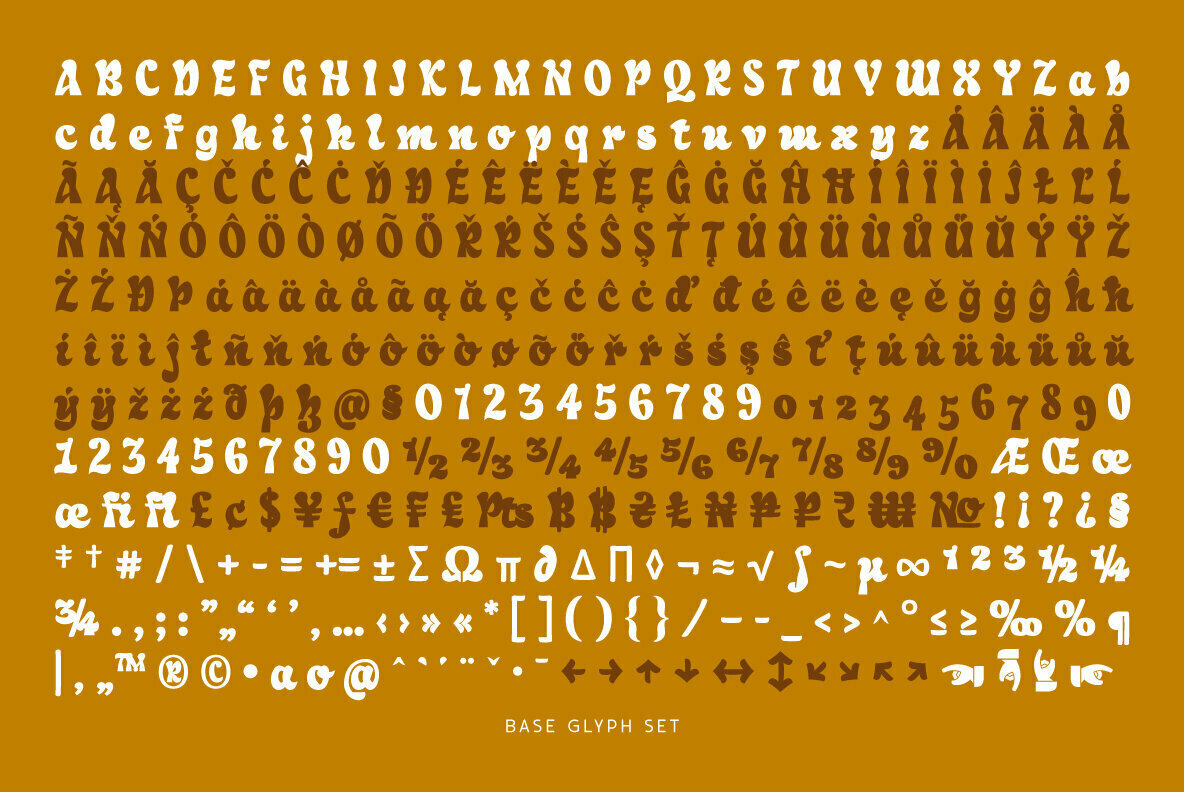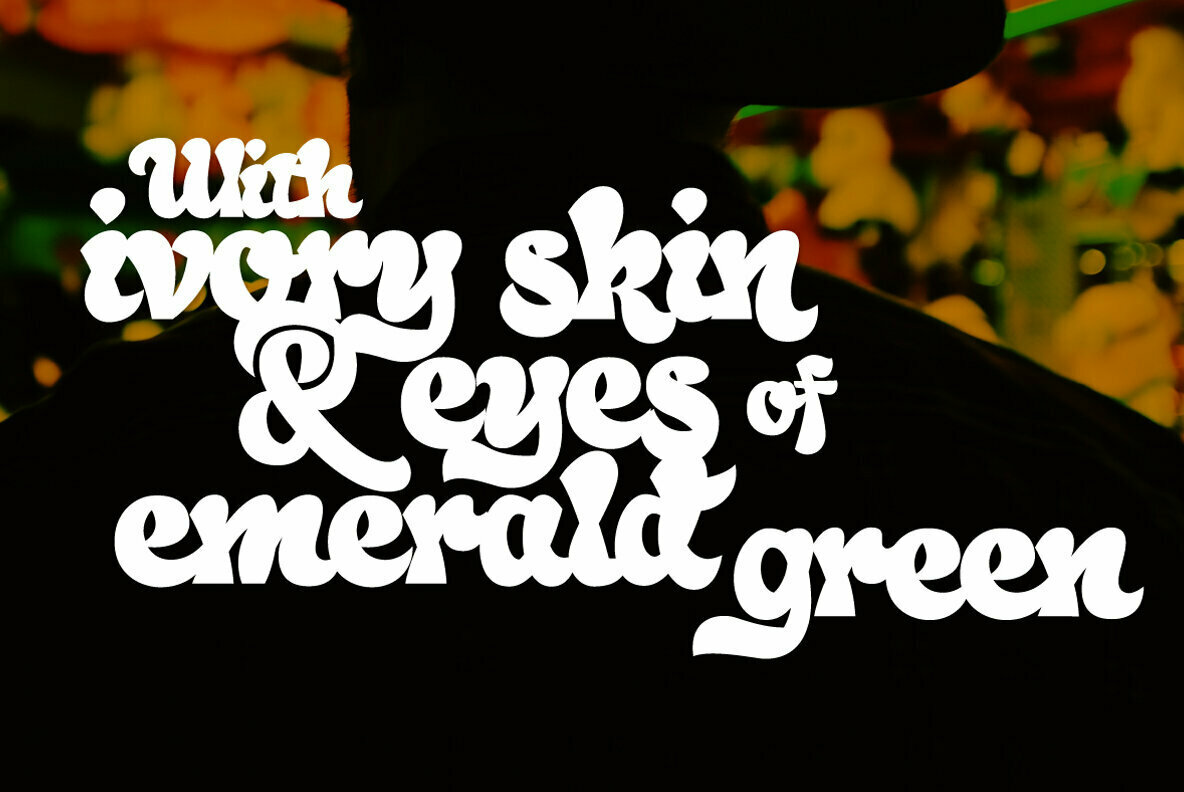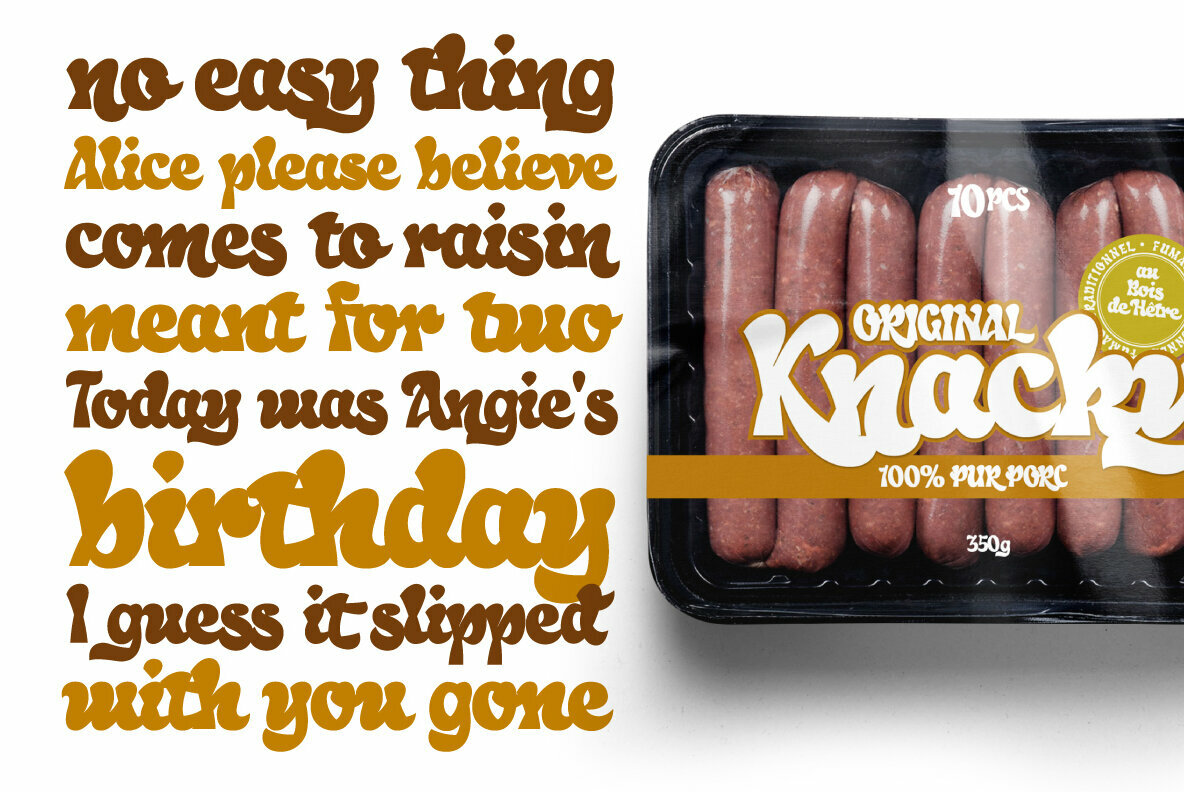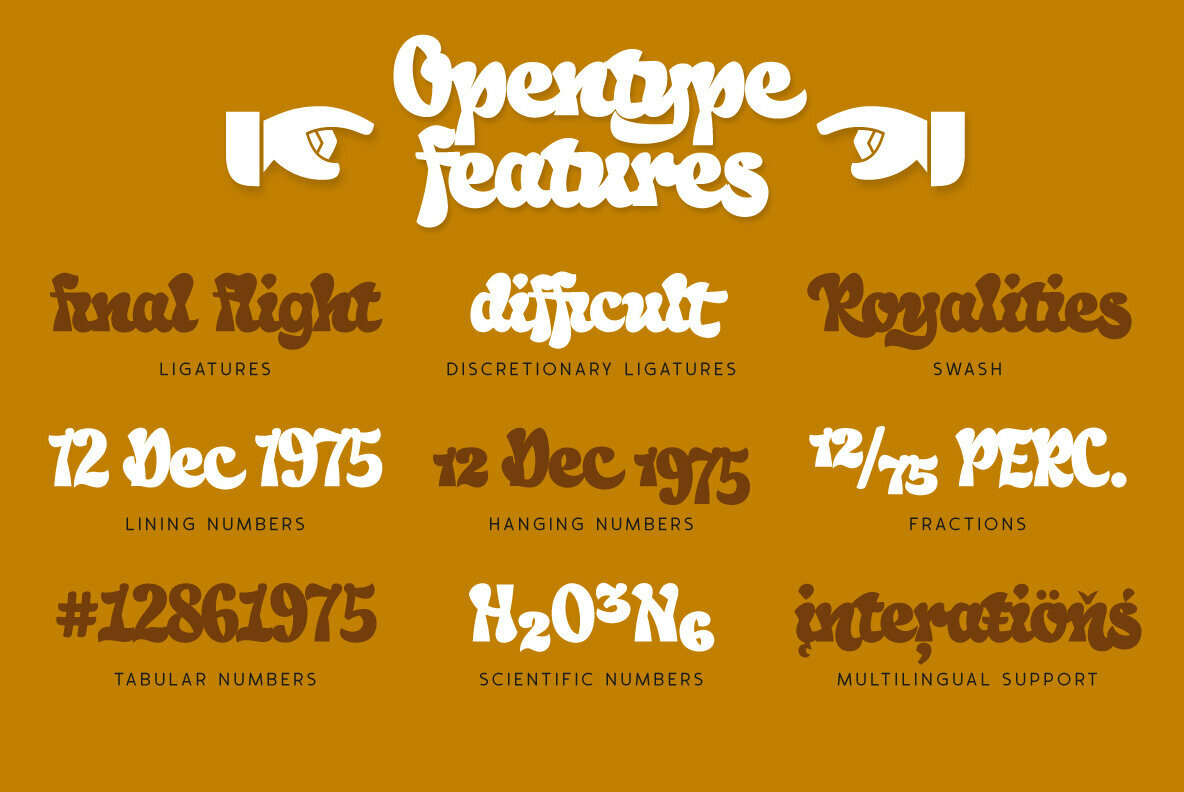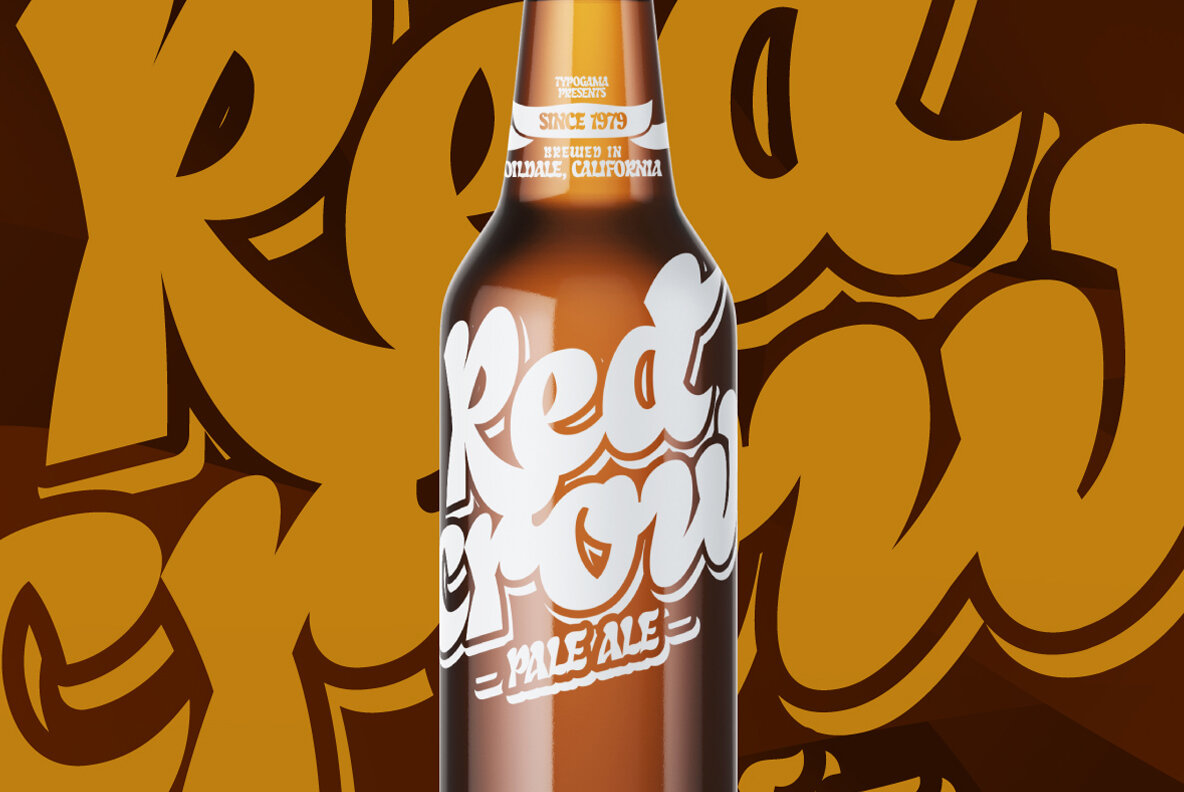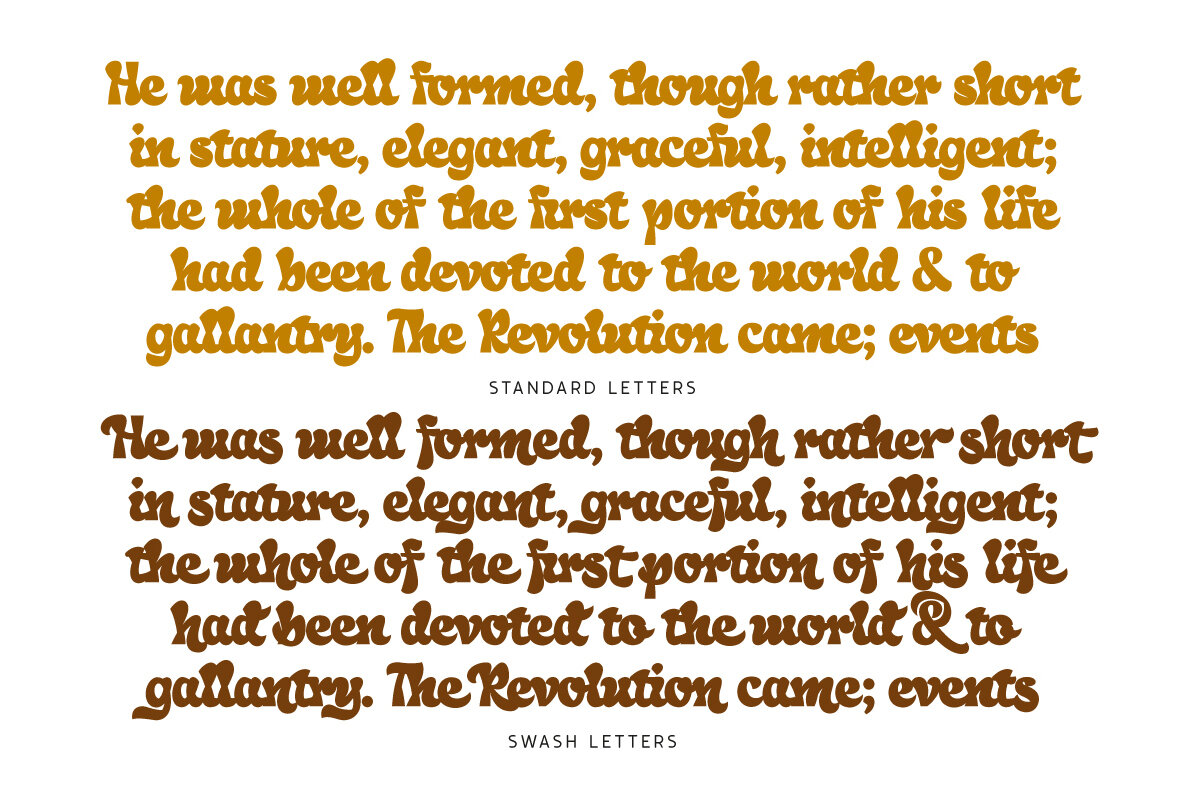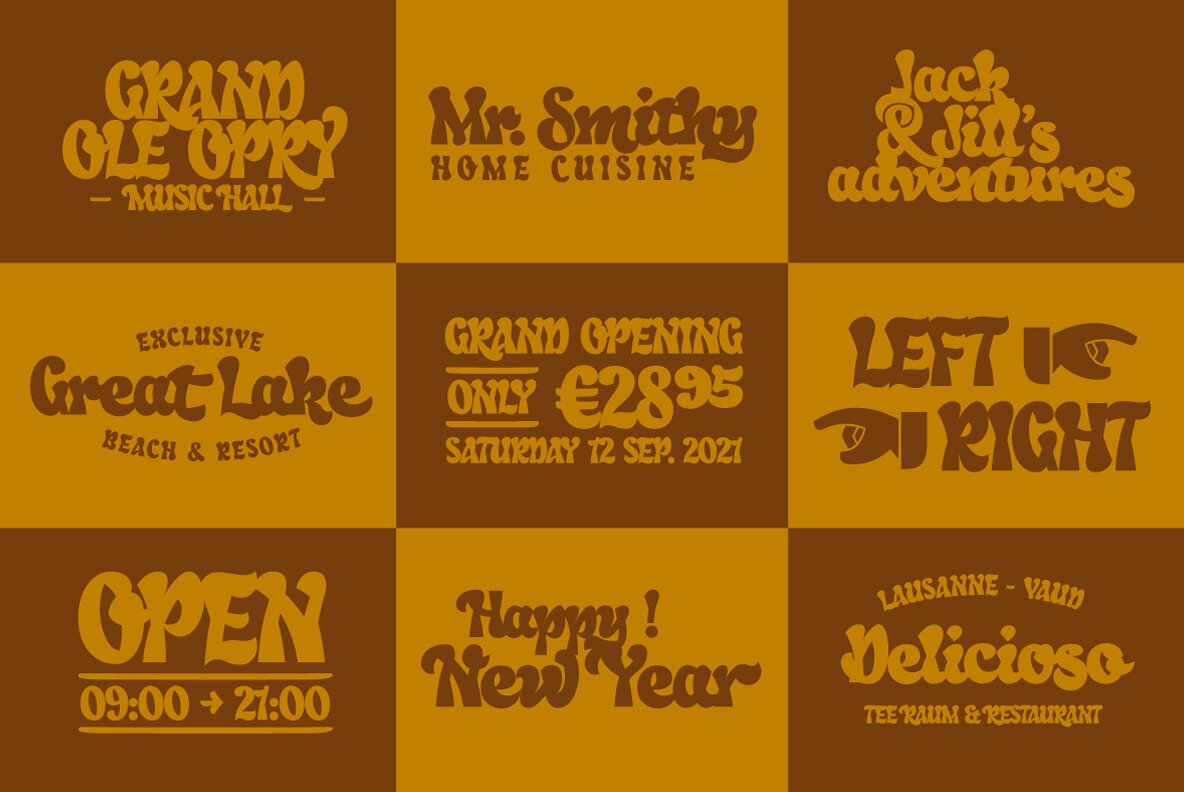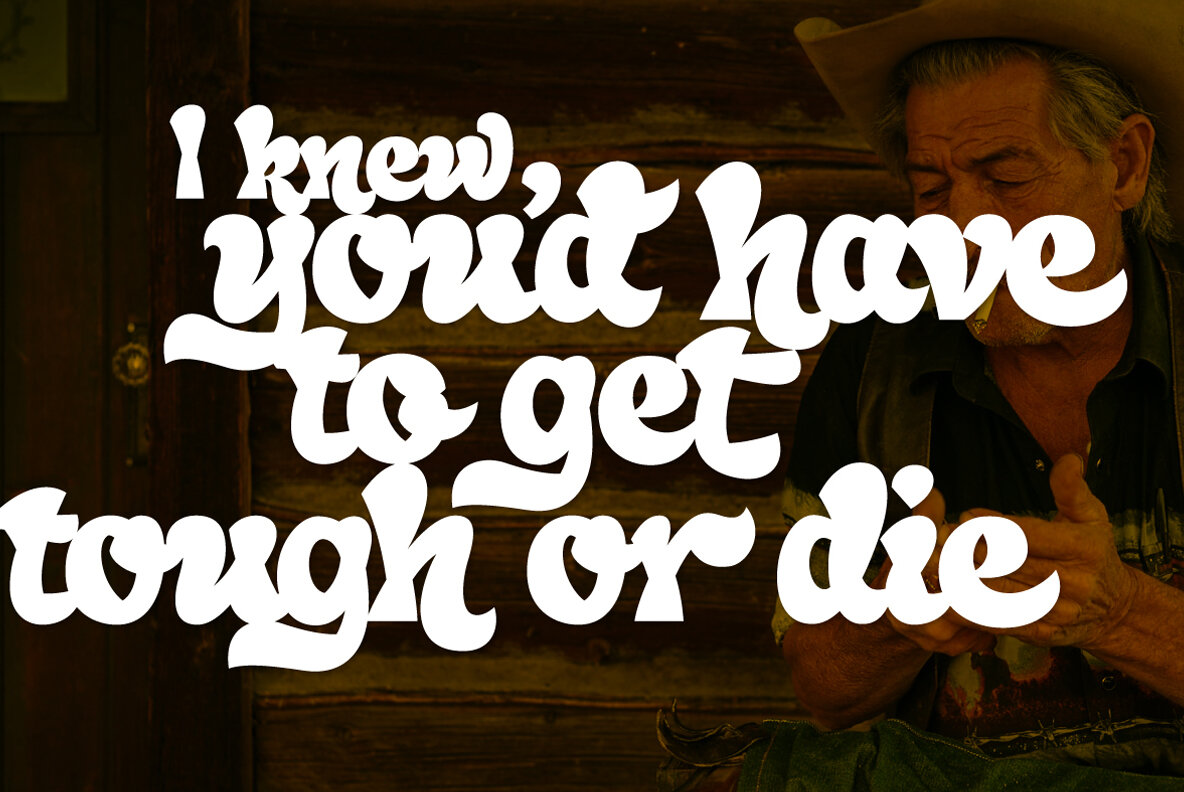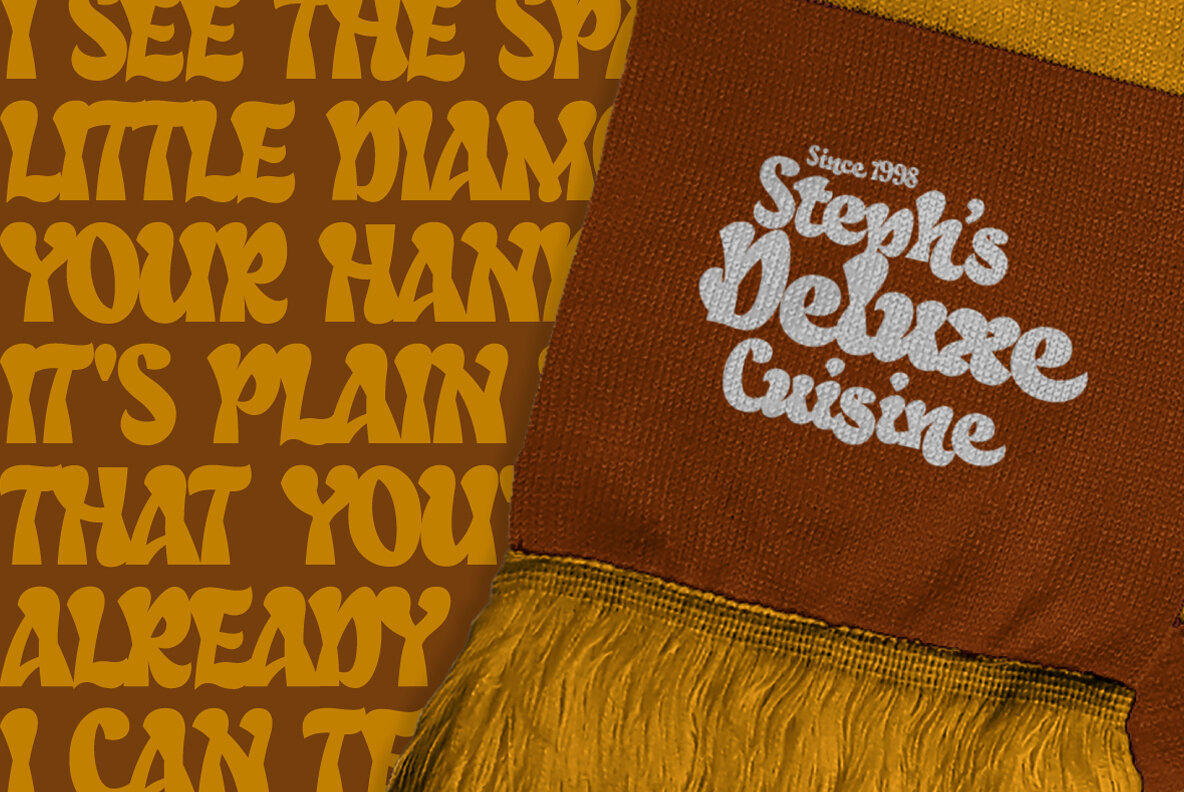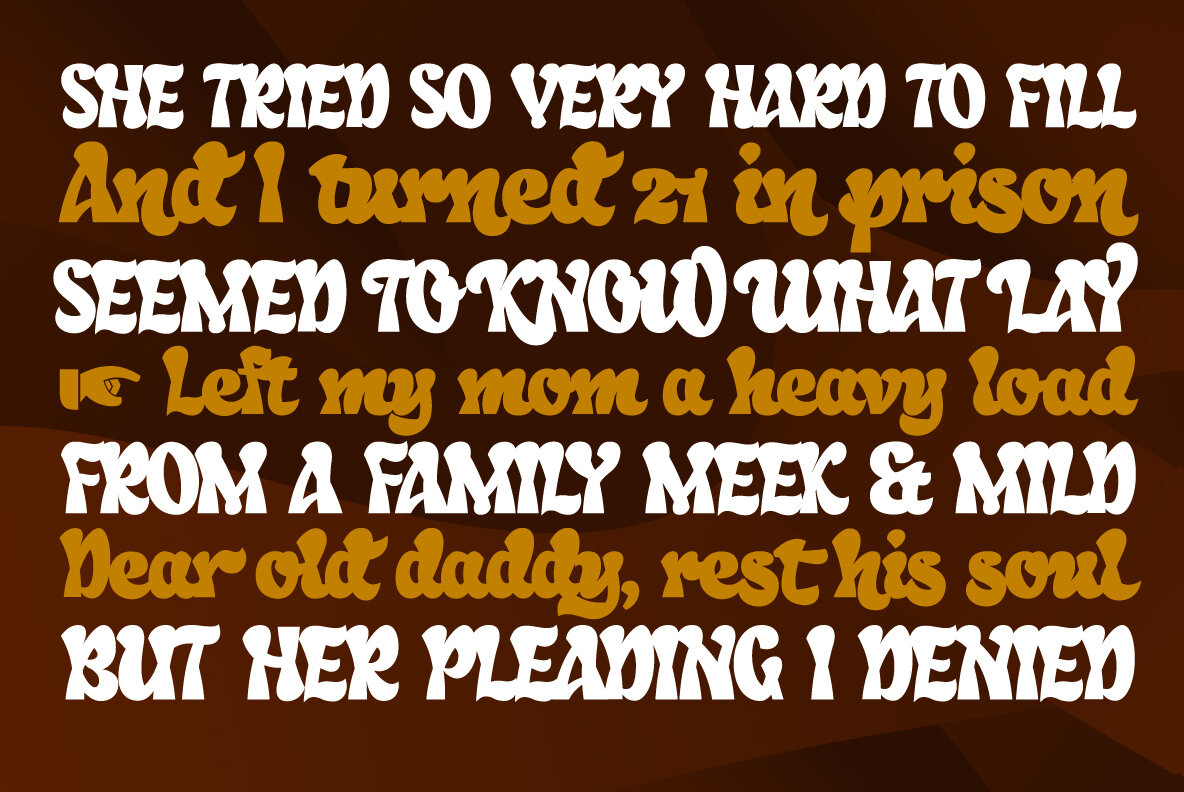
Oildale Font
Oildale Regular
Oildale is a single weight, connecting script that explores the idea of using crossed strokes as the main body of the typeface. Designed as a display font, it’s bold form and unique appearance lend it a distinctive charm that can be used in branding, headlines or other titling. Featuring an extended Latin support covering a wide range of langages, it also includes a range of Opentype options, from a choice of numerals, ligatures or decorative, swash letters.